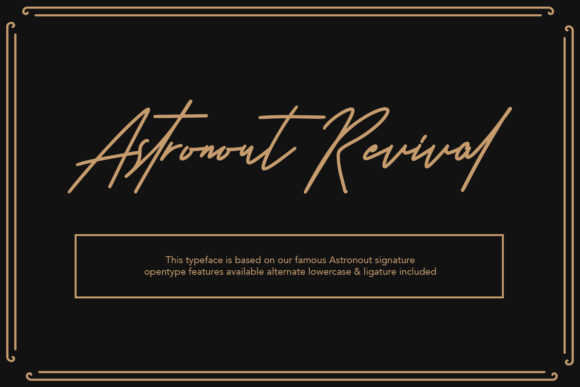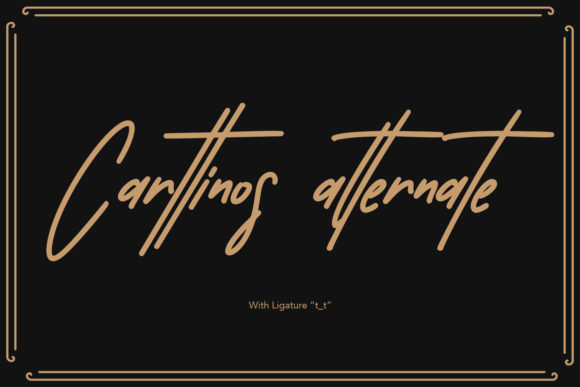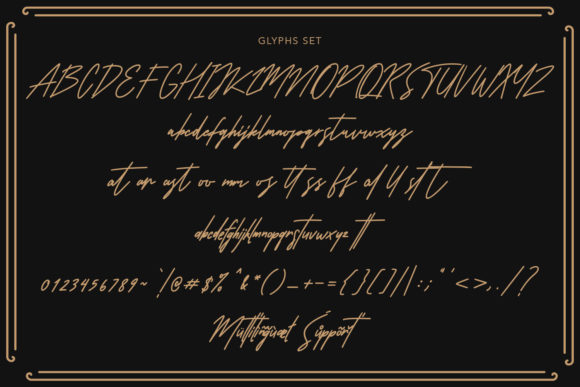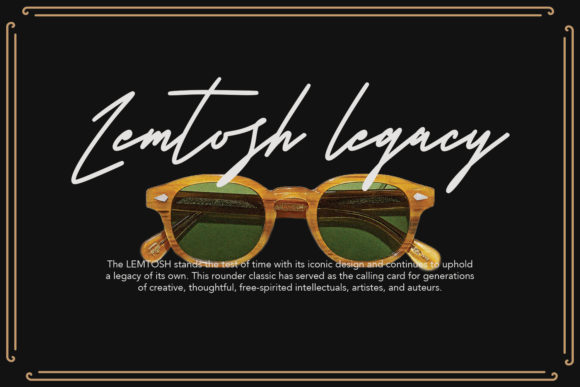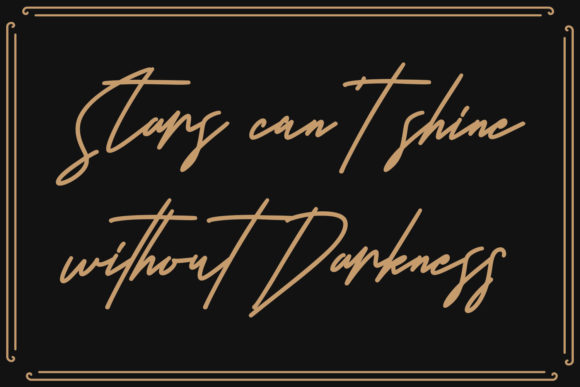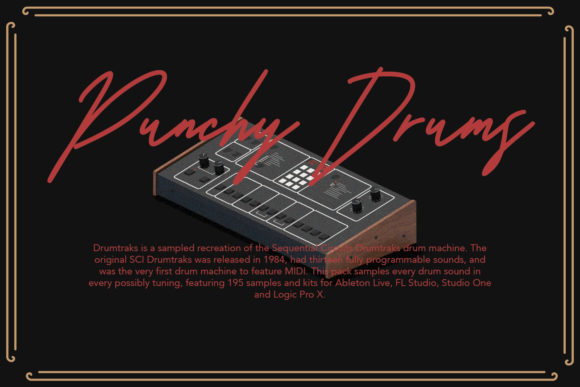
The Elusive Perfect Font: My Encounter with Carttinos
Ah, the quest for the perfect font. We’ve all been there – working on a project, pouring our hearts into it, and then… font paralysis sets in. I recall a particularly frustrating design session where I was tasked with creating a whimsical branding package for a new boutique client. The brief was simple: elegant, yet playful. I scoured font libraries, but nothing seemed quite right. That was until I stumbled upon Carttinos, a delicate and elegant handwritten font that would change the game.
First Impressions: A Love Affair with Carttinos
Carttinos is more than just a font – it’s a design companion that can elevate your creative projects to new heights. Beautifully designed to become a true favorite, this font has the potential to bring each of your creative ideas to the highest level!
What I Love About Carttinos ✨
• 💫 Elegant and refined, perfect for high-end branding or luxury product packaging
• ✅ Highly legible, even at smaller sizes – a must for body text
• 🎨 Versatile and adaptable, suitable for a wide range of creative projects
• 🔍 Intricate details and beautiful swashes, adding a touch of sophistication
• ⚠️ Some characters may require manual kerning for optimal spacing
• 🤔 Limited availability of Cyrillic or non-Latin scripts
The Story Behind Carttinos: Designer Inspiration
Carttinos was designed with the intention of creating a beautiful, elegant handwritten font that would inspire creativity and sophistication. The designer aimed to craft a font that would be versatile and adaptable, suitable for a wide range of creative projects. With its intricate details and beautiful swashes, Carttinos is sure to bring a touch of luxury to any design.
Q: What type of projects is Carttinos best suited for?
A: Carttinos is perfect for a wide range of creative projects, including branding, packaging, and digital design. Its elegant and refined feel makes it suitable for high-end and luxury brands.
Q: Is Carttinos available in different languages?